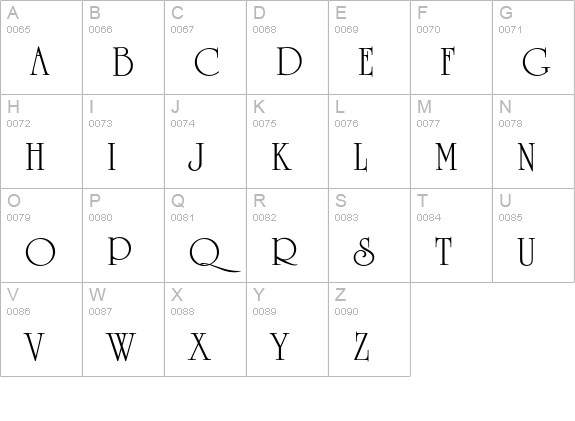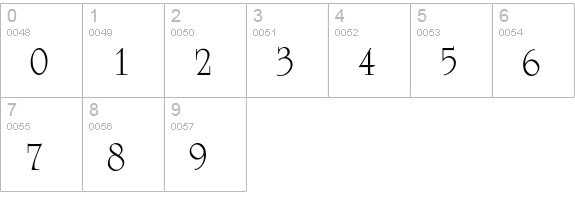
UniversityEF-Roman Font Details
Introducing UniversityEF-Roman, a mesmerizingly elegant font that effortlessly captures the essence of sophistication and professionalism. With its refined curves and timeless design, this font is bound to make a lasting impression on any project. UniversityEF-Roman is not only visually stunning but also incredibly versatile, making it the perfect choice for a wide range of applications. Whether you're designing a logo, creating eye-catching headlines, or crafting exquisite invitations, this font will elevate your work to new heights. What sets UniversityEF-Roman apart is its accessibility - it is freely available to download at FontsMarket.com. This means that you can unleash your creativity without any limitations or barriers. Now, you can effortlessly bring your ideas to life with this exceptional font, without having to worry about any additional costs. The attention to detail in UniversityEF-Roman is truly exceptional. Each letter is meticulously crafted, resulting in a harmonious balance between legibility and aesthetics. The smooth lines and graceful curves create a sense of elegance that is unparalleled. Whether you're a seasoned designer or just starting your creative journey, UniversityEF-Roman will quickly become an essential tool in your typographic arsenal. Its versatility and timeless beauty make it a favorite among professionals, who rely on its impeccable quality to make a statement. Don't miss the opportunity to enhance your designs with UniversityEF-Roman. Download it for free at FontsMarket.com and unlock a world of creative possibilities. Elevate your projects and leave a lasting impression with this captivating font.